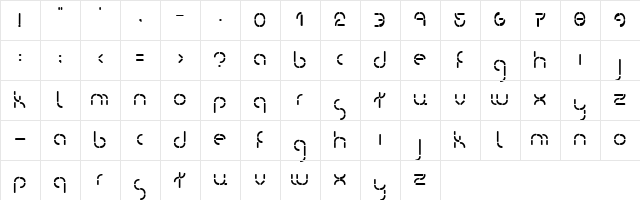
Kevlr Suit Regular
Design Context for Kevlr Suit
Kevlr Suit is a composed and adaptable typeface that performs quietly and consistently across a wide range of design contexts.
Pro Tip: Use Kevlr Suit in both headline and body roles to test its range before committing to a single application.